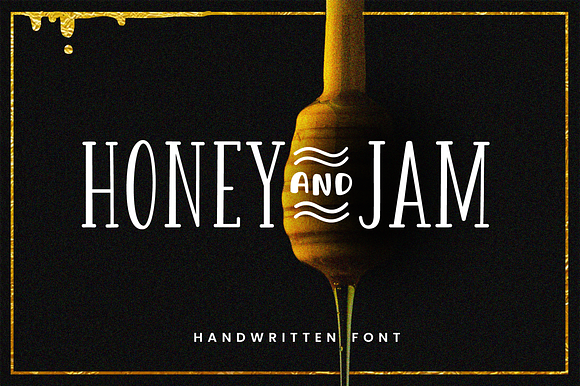
Honey and Jam - Regular
Our latest handwritten font “Honey and Jam” introduces a new style we wanted to try out for some time. It features a classy and elegant look combined with carefully designed serifs. It can be used with ALL CAPS or just small letters. Both will give your project a truly unique character. Speaking of character, the full version of Honey and Jam features over 200 characters that include numbers, special glyphs and language support for most latin languages. So don’t hesitate and try out some honey and jam for your next breakfast session – or just buy our latest font.